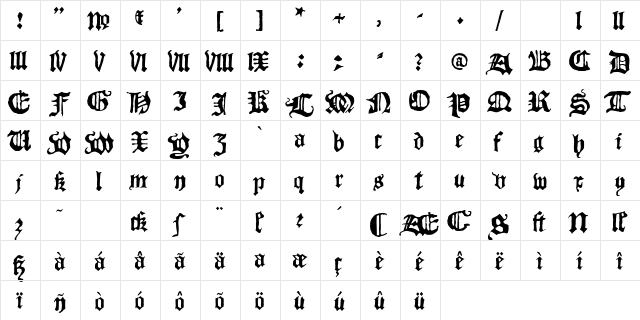
Blackletter HPLHS
Design Context for Blackletter Typeface
Blackletter draws on the rich tradition of blackletter calligraphy, with dense, angular strokes that evoke medieval manuscripts and old-world craftsmanship.
Well-suited to band logos, craft beer branding, tattoo lettering, and heritage-themed identities.
Font Pairing: Pair with a clean neutral sans-serif for body copy to let Blackletter's character lead without overwhelming the composition.
Pro Tip: Use Blackletter sparingly at large sizes. Even a single word set in blackletter can define the visual register of an entire design.